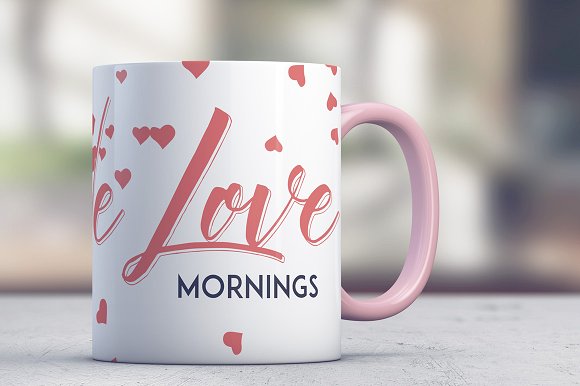
King Size Script Font
Introducing King Size Script Font! King Size designed by Ivan Rosenberg, this is a premium font, are sold on creativemarket, but it was great, it is free today for download. King Size is a hand lettered font with multilingual support. Is ideal for headers, restaurant menus, greeting cards, invitations, weddings, headers and many more. This font comes with a complete set of lowercase and uppercase letters, numbers, alternates, ligatures and multilingual support.